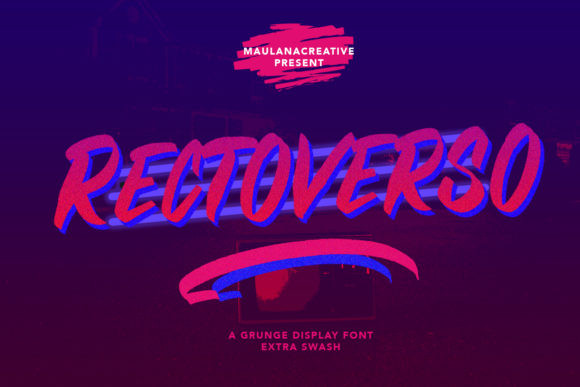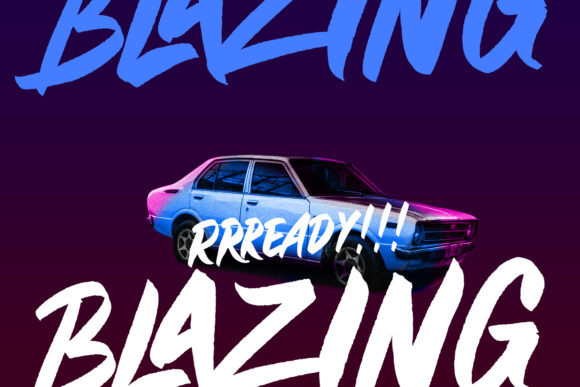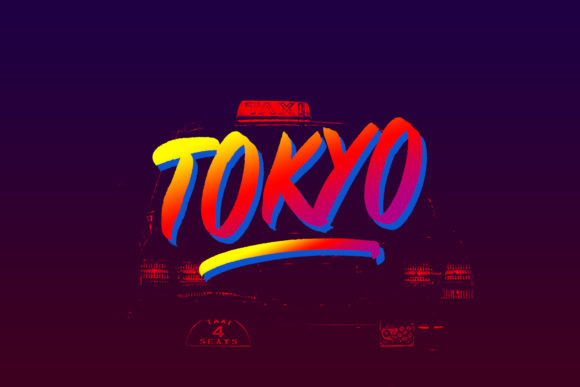
Rectoverso Font
Give your designs an authentic brush look with the Rectoverso Display Font. This font is perfect for stationery, logos, typography quotes, magazine or book covers, website headers, flyers, clothing, branding, packaging design, and more.